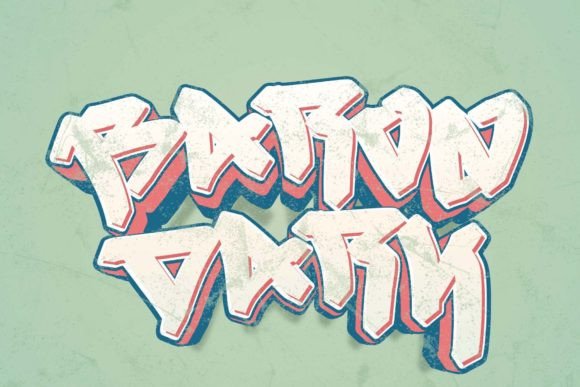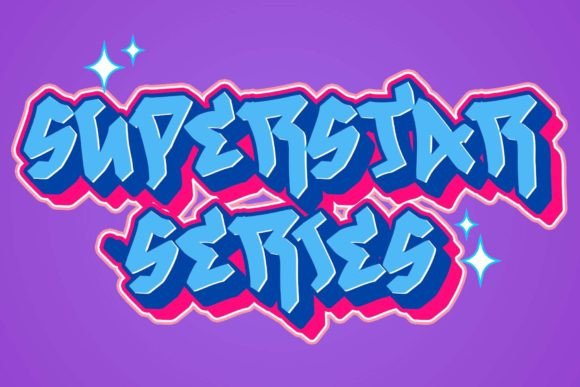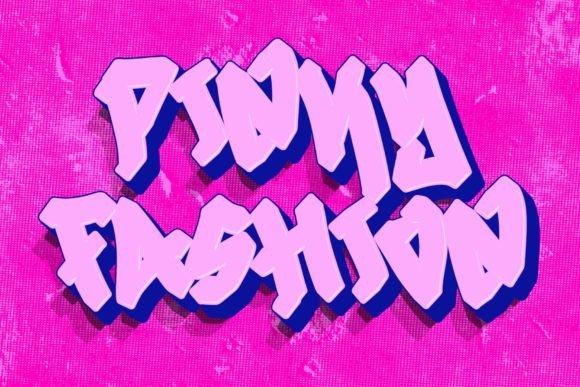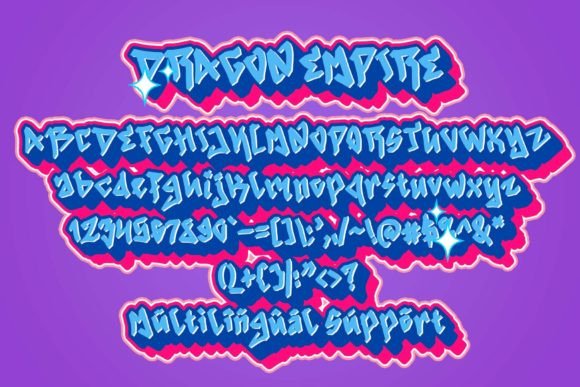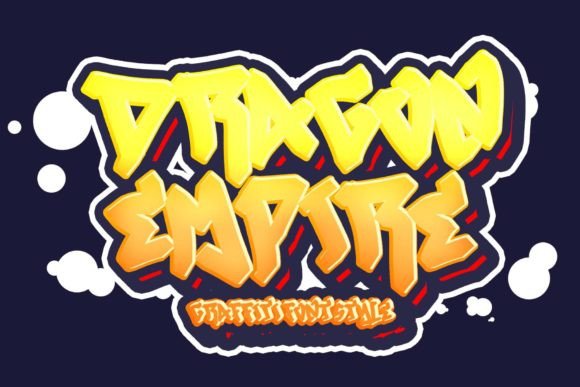
Unleash Your Creativity with Dragon Empire Font: A Unique and Elegant Graffiti Font
Are you a designer, craftsperson, or simply someone who loves to add a touch of personality to their projects? Look no further than the Dragon Empire Font, a one-of-a-kind graffiti font that’s perfect for creating eye-catching titles, logos, and designs. In this article, we’ll dive into the features and benefits of this versatile font, and explore how it can elevate your creative projects.
What is Dragon Empire Font?
Dragon Empire Font is a unique and elegant graffiti font that’s designed to add a touch of sophistication and style to your projects. With its bold and dynamic design, this font is perfect for creating striking titles, logos, and graphics that demand attention. Whether you’re working on a comic book, a branding campaign, or a holiday-themed project, Dragon Empire Font is the perfect choice.
Key Features of Dragon Empire Font
So, what makes Dragon Empire Font so special? Here are just a few of its key features:
- Unique and Elegant Design: Dragon Empire Font boasts a distinctive and refined design that’s sure to set your projects apart from the crowd.
- Multilingual Support: With support for multiple languages, you can use Dragon Empire Font to create projects for a global audience.
- Complete Character Set: This font includes a full range of characters, including lowercase letters, uppercase letters, punctuation, numerals, and more.
- Versatile and Adaptable: Whether you’re creating a comic title, logo, banner, poster, or sticker, Dragon Empire Font is the perfect choice.
Use Cases for Dragon Empire Font
So, what can you create with Dragon Empire Font? The possibilities are endless! Here are just a few ideas to get you started:
- Comic Titles and Logos: Add a touch of drama and excitement to your comic book titles and logos with Dragon Empire Font.
- Branding and Advertising: Create eye-catching brand identities and advertisements that demand attention.
- Holiday-themed Projects: Use Dragon Empire Font to create spooky and festive designs for Halloween, Christmas, and other holidays.
- Games and Gaming: Add a touch of personality to your games and gaming projects with this unique and engaging font.
- Tattoos and Stickers: Create custom tattoos and stickers with Dragon Empire Font for a truly one-of-a-kind look.
Why Choose Dragon Empire Font?
With so many fonts to choose from, why should you choose Dragon Empire Font? Here are just a few reasons:
- Unique and Exclusive: Dragon Empire Font is a one-of-a-kind font that’s sure to set your projects apart from the crowd.
- Elegant and Refined: This font boasts a sophisticated and refined design that’s perfect for creating high-end projects.
- Versatile and Adaptable: Whether you’re working on a small project or a large-scale campaign, Dragon Empire Font is the perfect choice.
- High-quality and Professional: This font is designed to deliver high-quality results, making it perfect for professional designers and craftspersons.
In conclusion, Dragon Empire Font is a unique and elegant graffiti font that’s perfect for designers, craftspersons, and anyone looking to add a touch of personality to their projects. With its bold and dynamic design, multilingual support, and complete character set, this font is sure to elevate your creative projects and set them apart from the crowd. So why wait? Download Dragon Empire Font today and unleash your creativity!